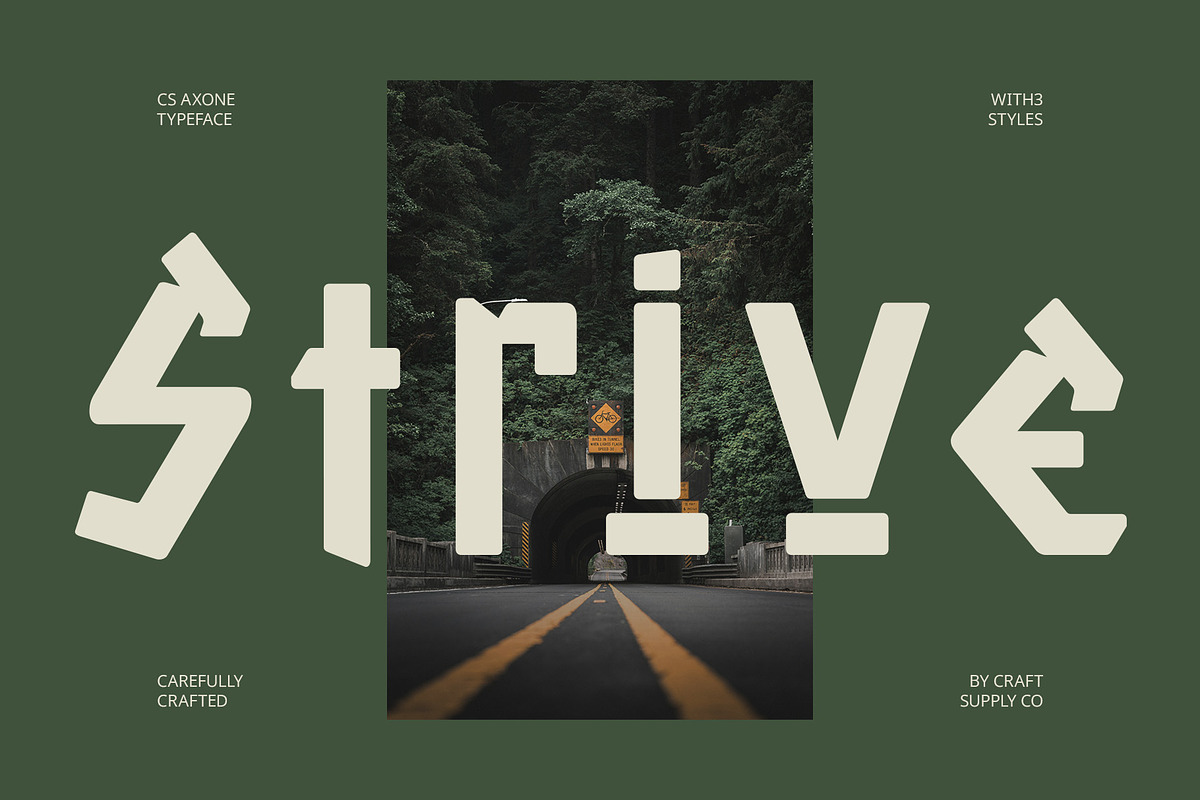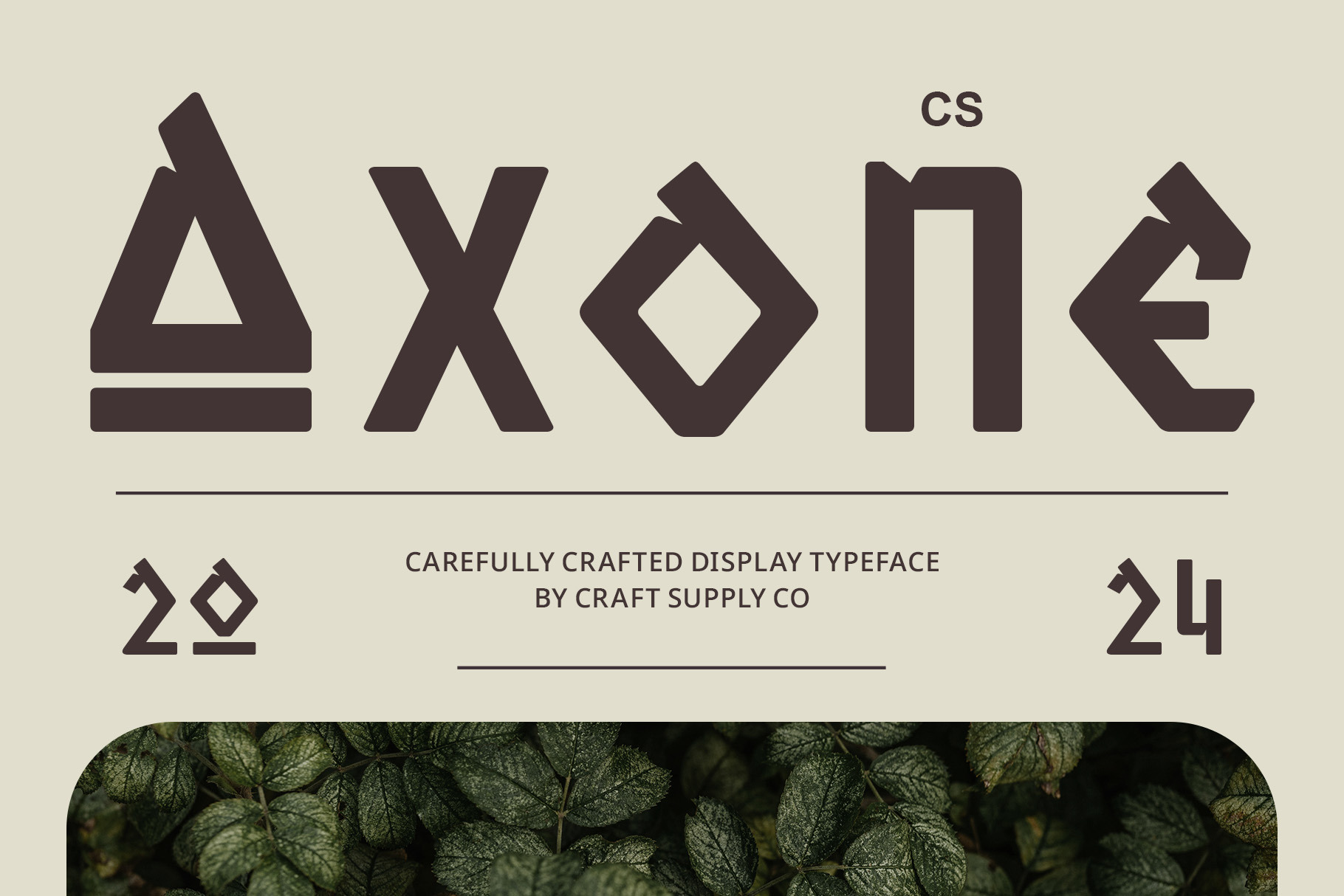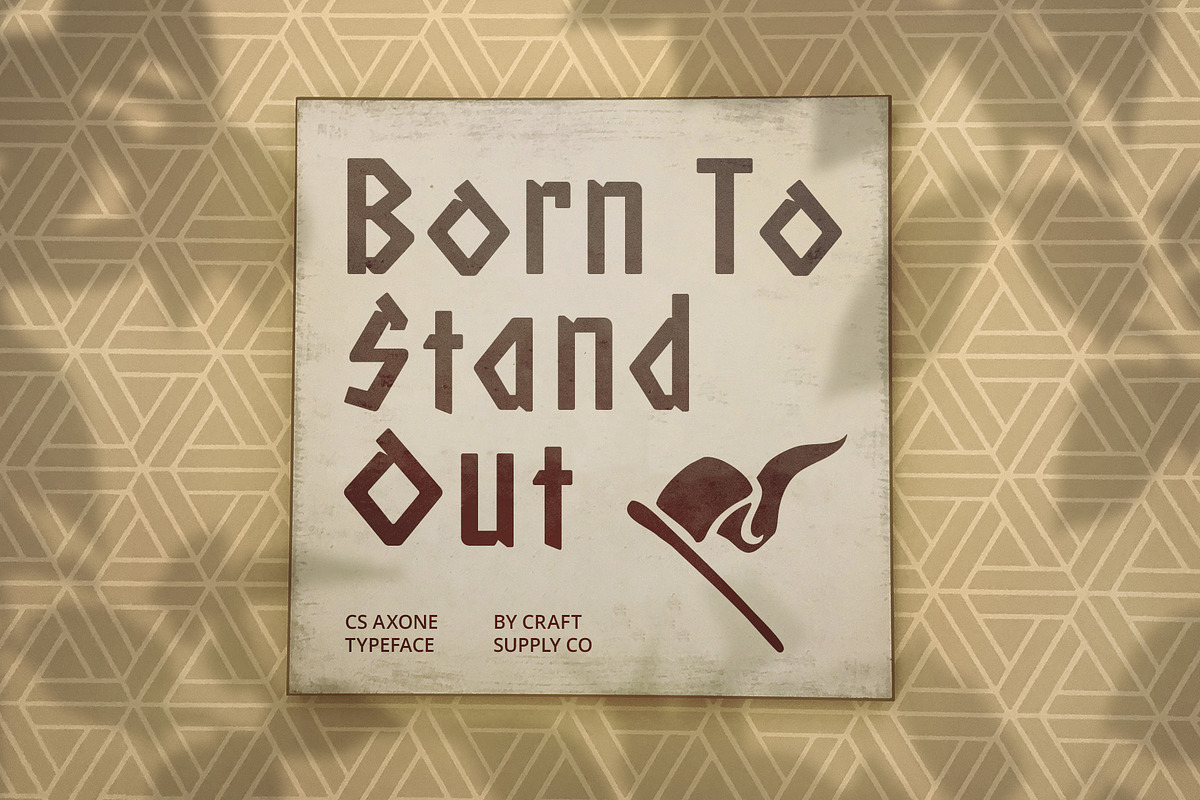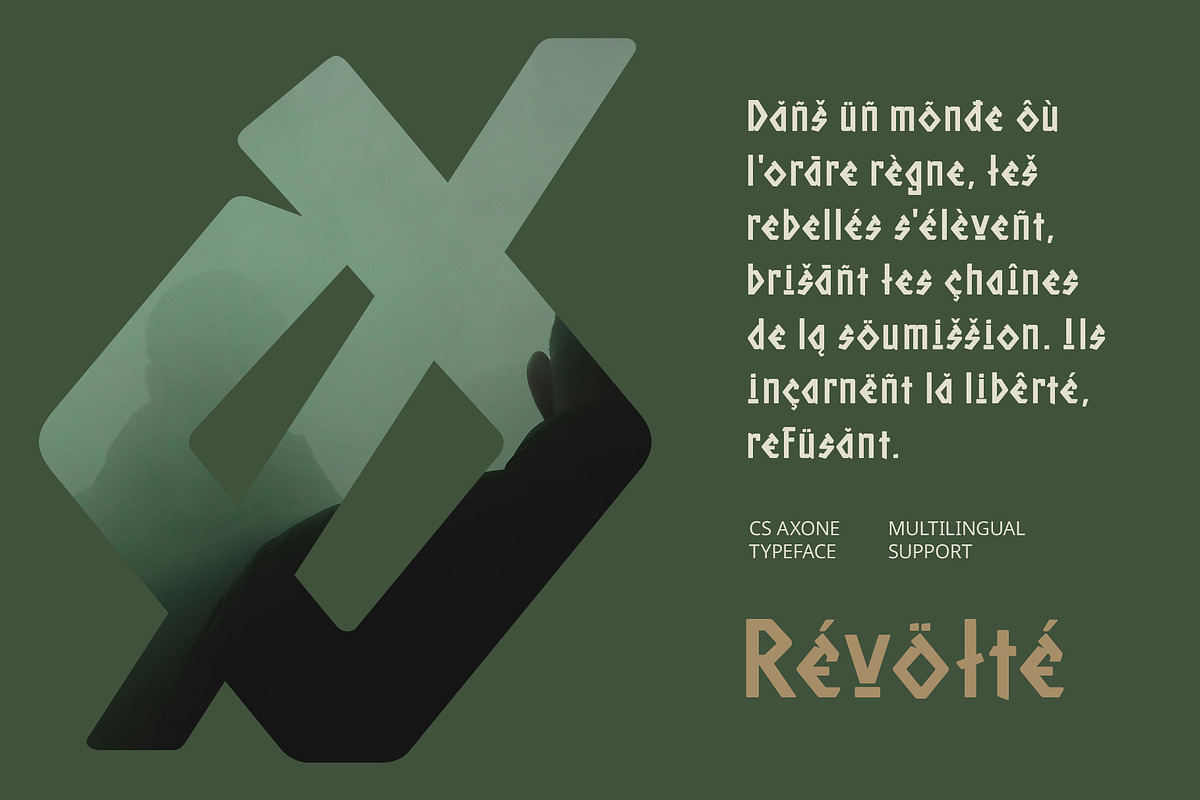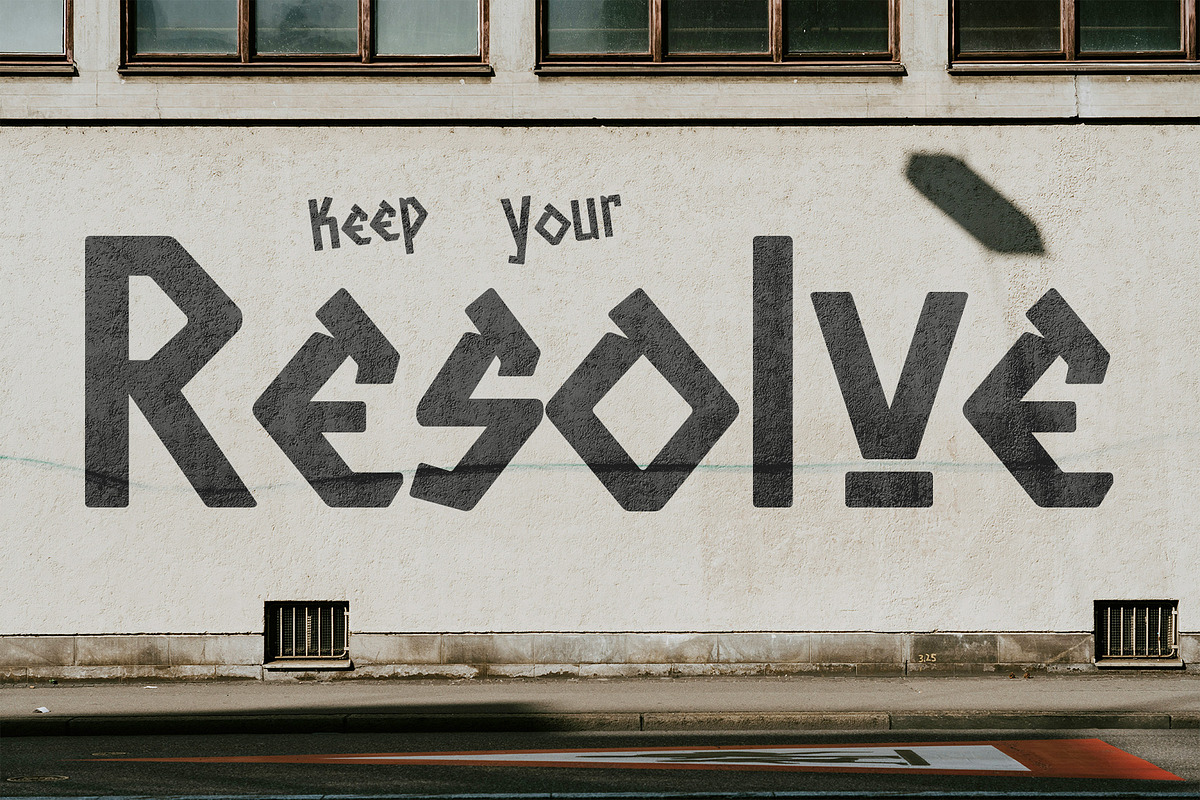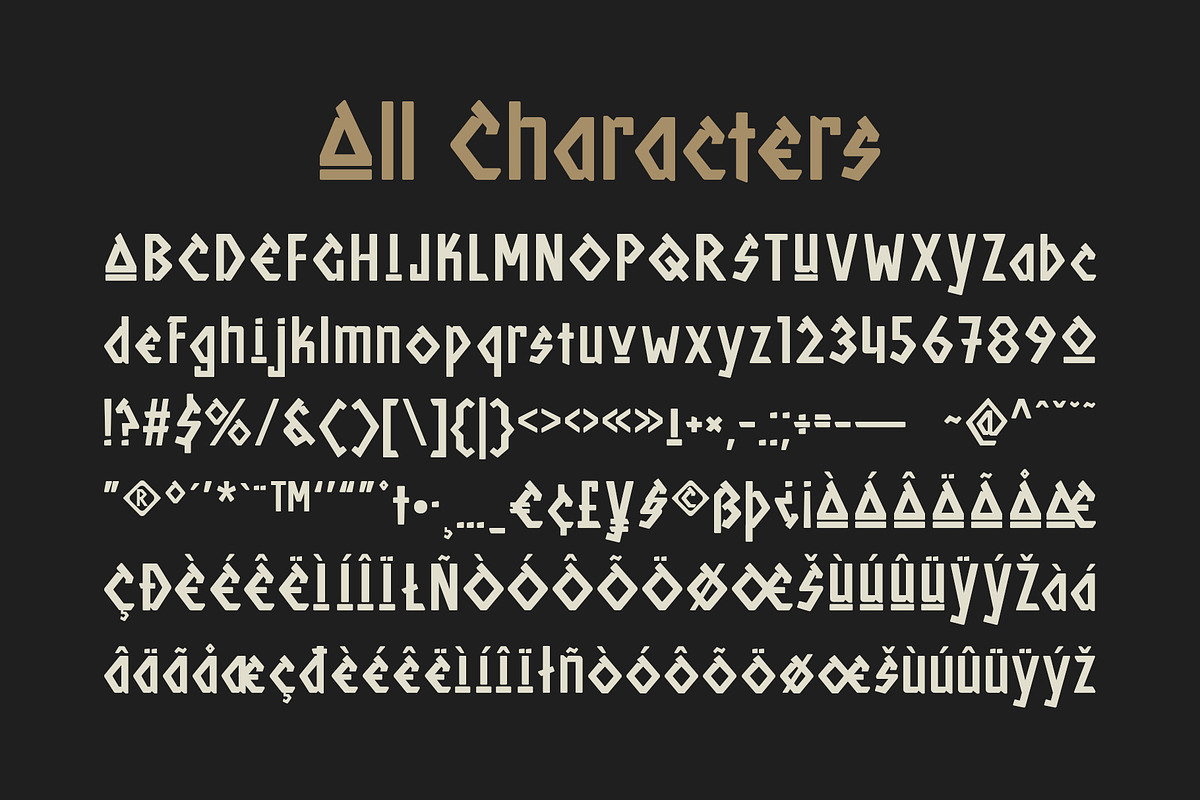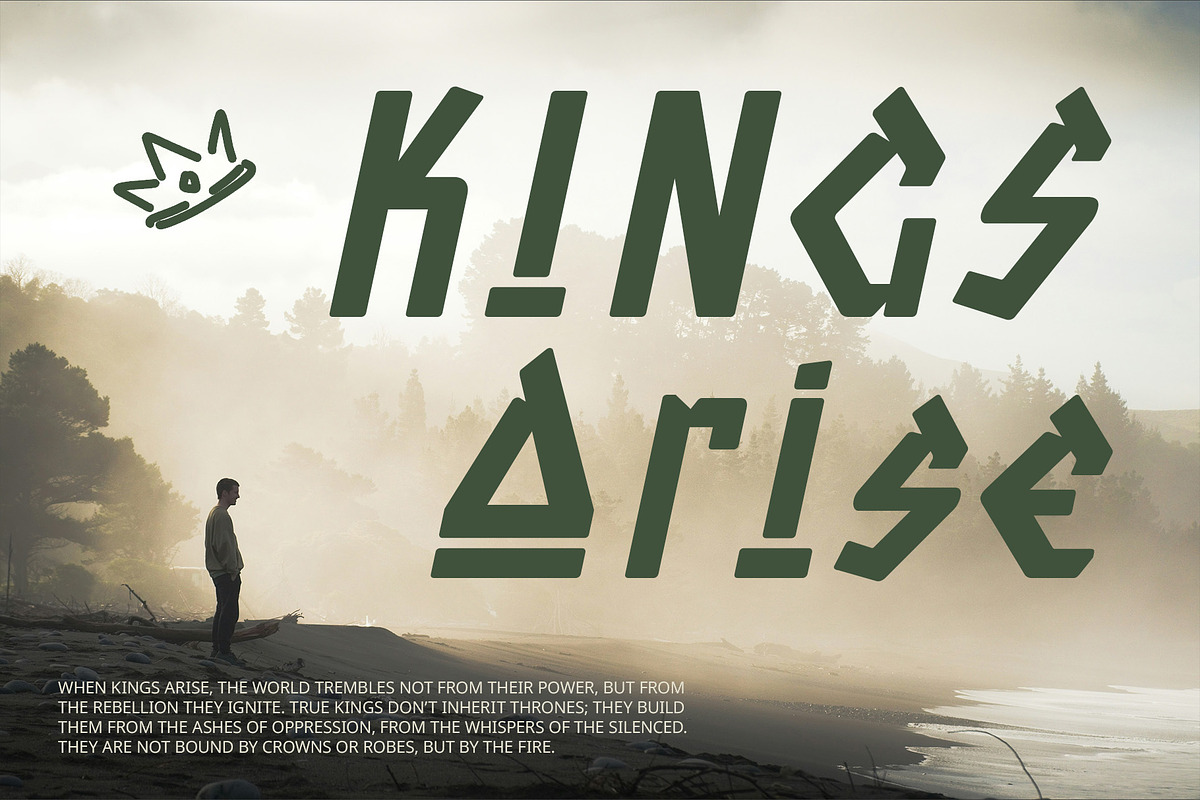
CS Axone – Ancient Greek Font
CS Axone – Ancient Greek Font: Echoes of Antiquity
Ancient Greek Inspired Display Font CS Axone is a display font inspired by the elegance and grandeur of ancient Greek scripts. It captures the essence of classical lettering with its distinct forms and refined details, bringing a touch of historical sophistication to contemporary design.
Intricate Details and Classic Proportions The font features intricate details and carefully crafted proportions that pay homage to the artistry of ancient Greek inscriptions. These details, combined with balanced letterforms, create a sense of timeless beauty and visual harmony.
Dramatic Contrast and Vintage Aesthetic CS Axone incorporates a dramatic contrast between thick and thin strokes, reminiscent of traditional calligraphy and stone carving. This contrast enhances the vintage aesthetic and adds a sense of depth and character to the typeface.
Versatile for Sophisticated Design CS Axone is perfect for adding a touch of timeless sophistication to a variety of design projects. From logos and headlines to posters and branding materials, this font lends itself well to creating a nostalgic and refined look. It is particularly suitable for projects seeking to evoke a sense of history, culture, or classic elegance.